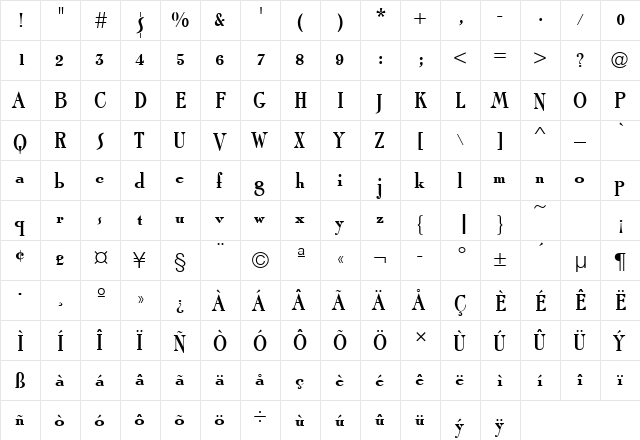
RomanSolAltT Regular Font Preview
RomanSolAltT Regular
Design Context for RomanSolAltT Typeface
RomanSolAltT is a composed and adaptable typeface that performs quietly and consistently across a wide range of design contexts.